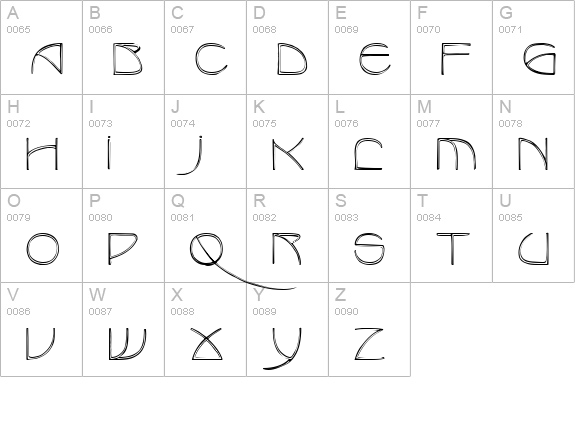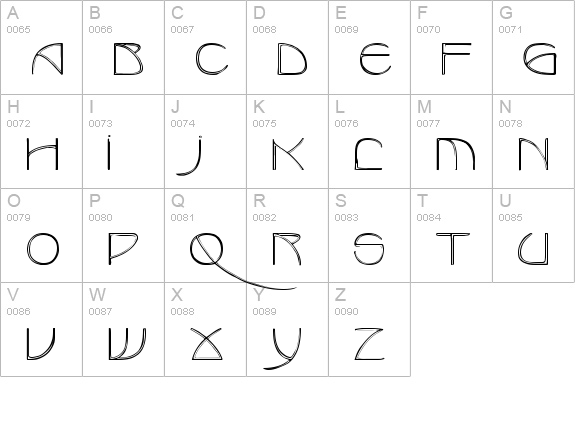
Benjamin Regular Font Details
Benjamin Regular is the standard, neutral variant in the Benjamin typeface family \xE2\x80\x94 well suited to general body text, paragraphs, and standard typographic work.
Benjamin Regular font is a modern and versatile typeface that brings a touch of elegance to any design project. Its clean lines and balanced proportions make it perfect for a wide range of applications, from branding to editorial design. The classic yet contemporary look of Benjamin Regular font makes it a popular choice among designers looking for a timeless typeface. This font is not only stylish and professional but also free to download at FontsMarket.com. Whether you're working on a logo, website, or print materials, Benjamin Regular font will add a touch of sophistication to your design. Download it today and elevate your projects with this high-quality typeface.